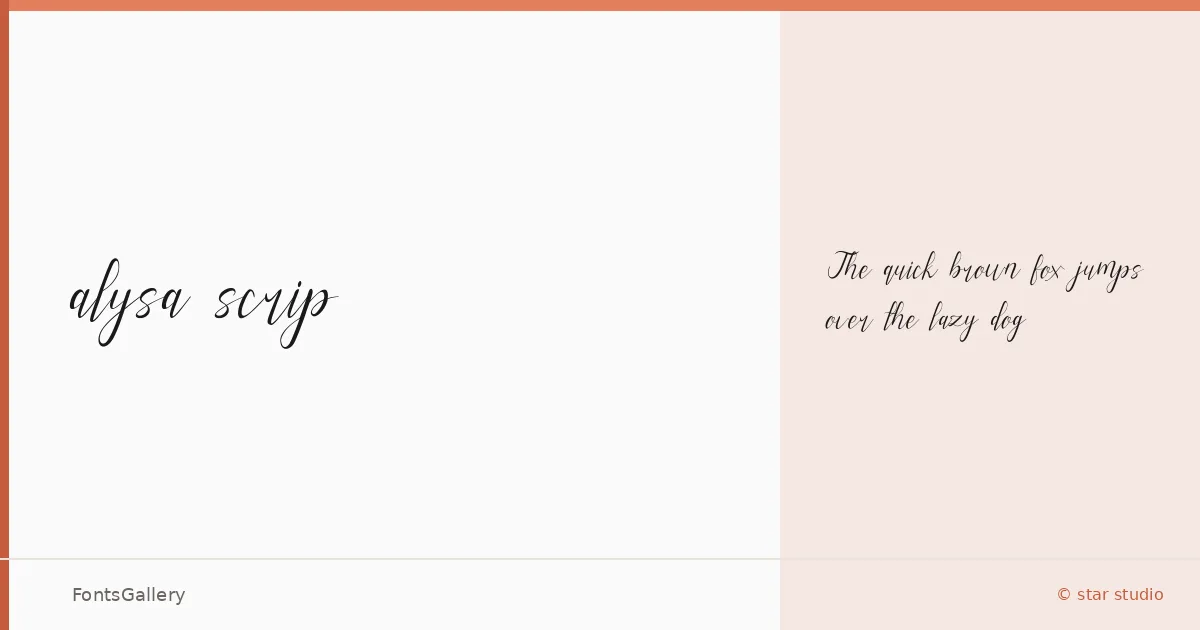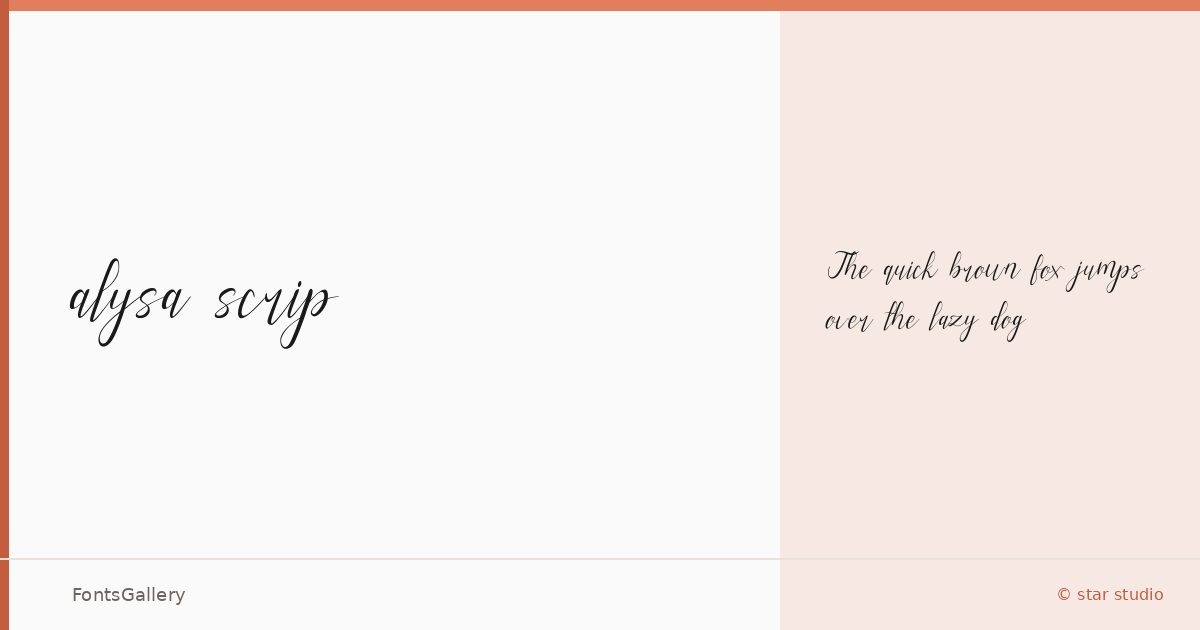
About alysa scrip Font
There is a measured grace to this script — the kind that suits a formal occasion without feeling stiff. Released by star studio, it arrives as a single Regular weight, delivered in both TTF and OTF formats, with letterforms that lean into the classic calligraphic tradition while keeping things legible at display sizes.
Romantic and elegant in mood, the script carries the unhurried rhythm you expect from hand-lettered ceremony work. The single Regular cut keeps the offering focused — this is a face built around a specific register, not a workhorse across a range of weights. Latin coverage is partial, so check your glyph set before committing it to anything requiring extended character support.
It earns its place on wedding stationery, invitation cards, certificates, and branding treatments where a classic, romantic hand is the right signal. For supporting text, the listed pairing options — Canela, Helvetica, ABC Arizona, Asap, and Adobe Caslon Pro — each offer a useful contrast, whether you want a crisp contemporary sans or a grounded serif to anchor the composition beneath the script headline.